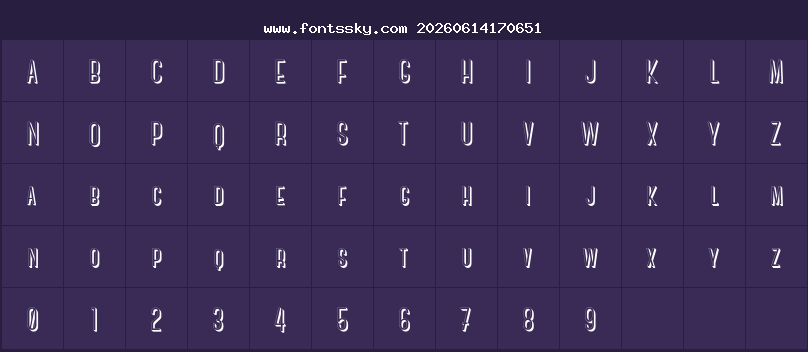
Canter Bold 3D Preview
• Font Name: Canter Bold 3D
• Full Font Name: Canter Bold 3D
• Manufacturer: Christopher J. Lee
About Canter Bold 3D.otf
Canter Bold 3D.otf is a modern, elegant sans-serif font designed for ultimate readability and visual harmony. Perfect for branding, headlines, web design, and print materials.